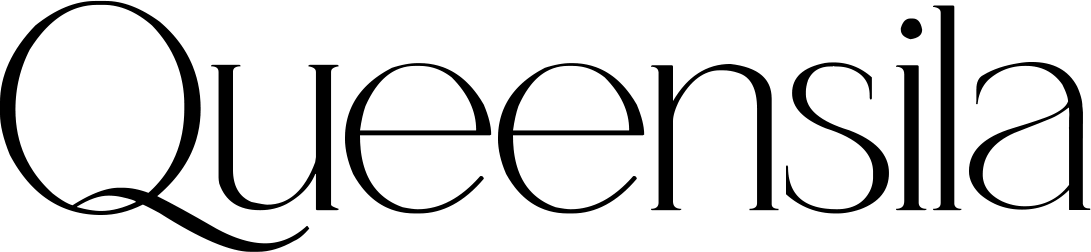
Queensila Font
For a professional text, we are bringing you Queensila! This serif font has a thin and simple look, and it can be used for any branding names, cosmetics, product packaging, formal texts or headlines, and any kind of business event to give a serious and digital tone to your literature. The numeral set in this font is not complete.